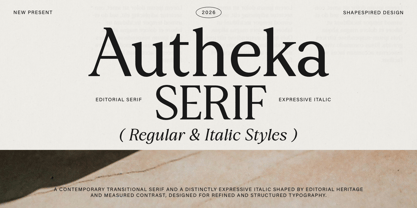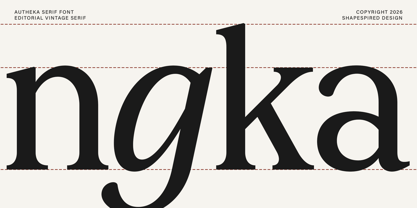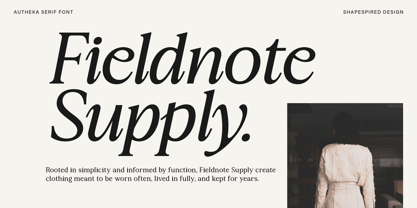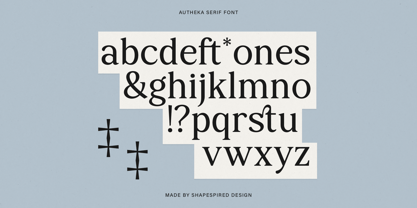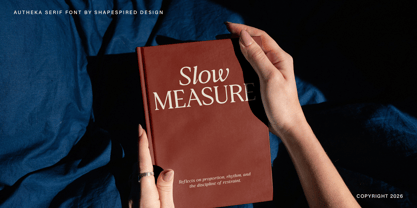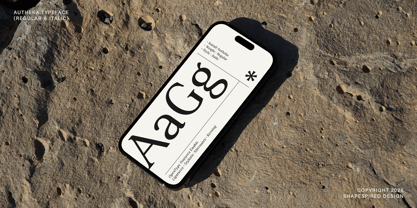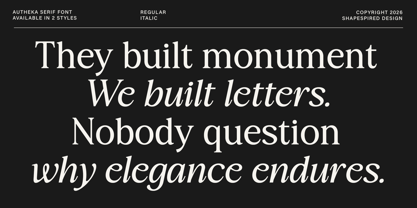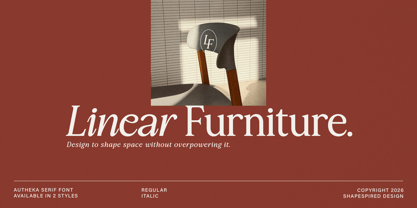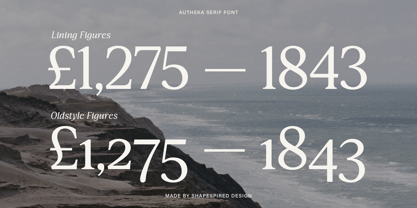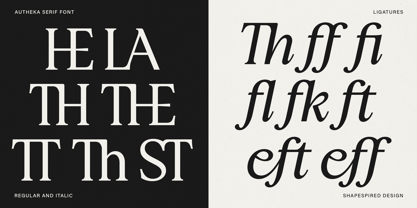
Autheka
The Autheka Font Family was designed by Muhajir Saputra and published by Shapespired Design. Autheka contains 2 styles and family package options. More about this family
Autheka is a contemporary transitional serif designed with structural clarity and controlled contrast. Rooted in classical proportion yet shaped for modern editorial environments, it balances rational construction with quiet elegance. Defined by measured stroke modulation, bracketed serifs, and composed rhythm, Autheka bridges the warmth of oldstyle tradition and the precision of modern serif thinking. Its form are deliberate — never ornamental, never excessive. The Regular presents stability and refinement, while the Italic introduces movement without losing structural discipline. Oldstyle figures are included to support immersive reading and sophisticated typographic setting. Autheka performs confidently in editorial headlines, cultural publications, book design, luxury branding, and refined visual identities — where presence matters, but restraint defines character. What appears simple is carefully constructed.